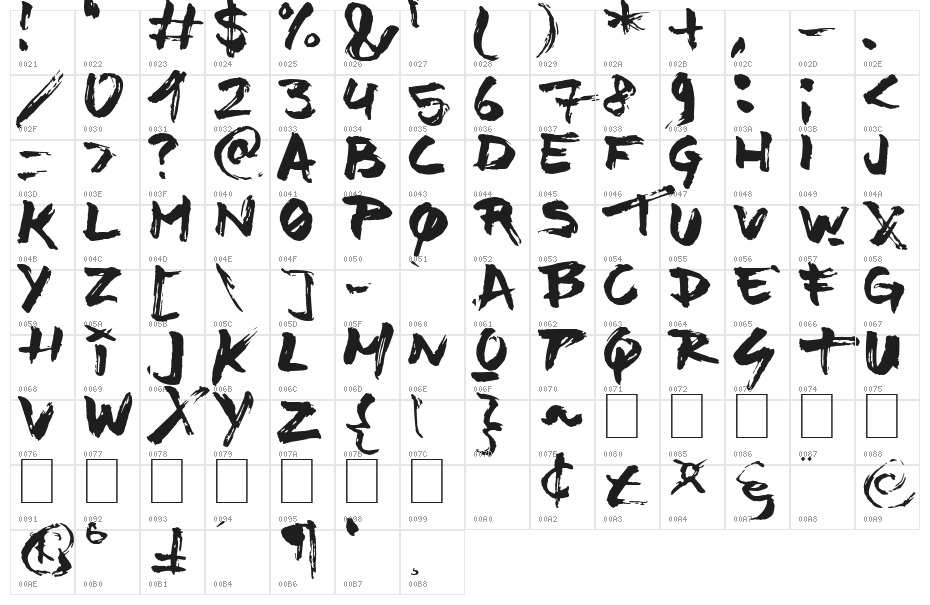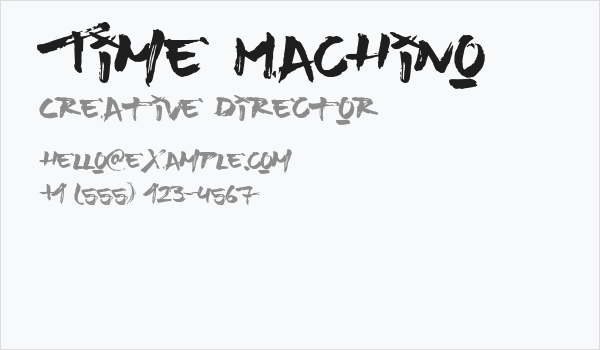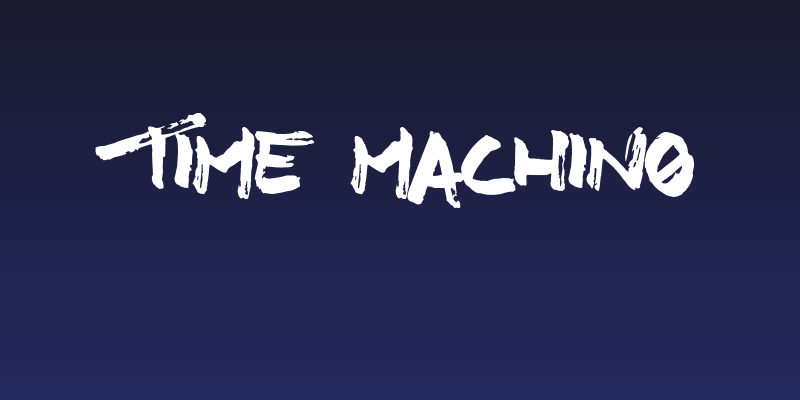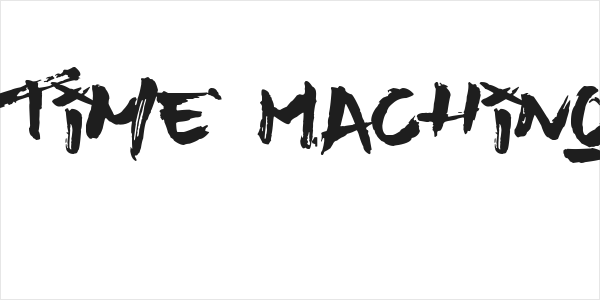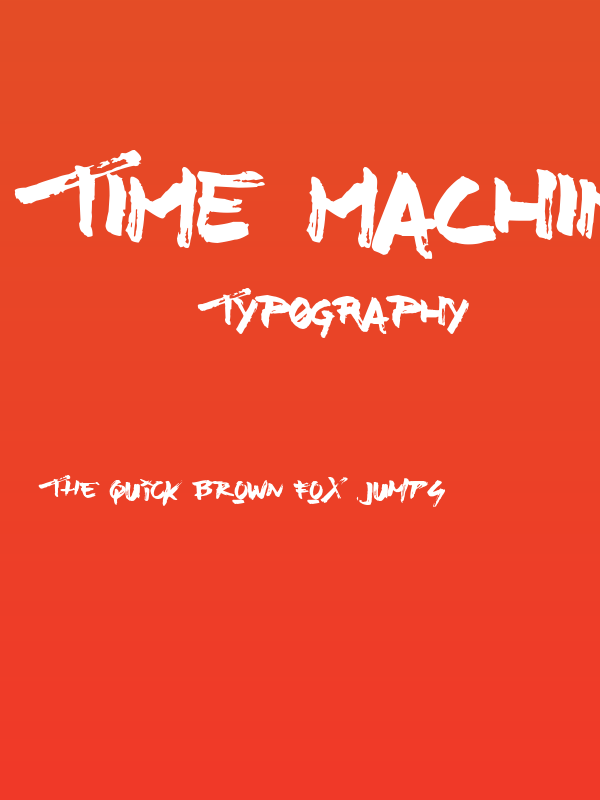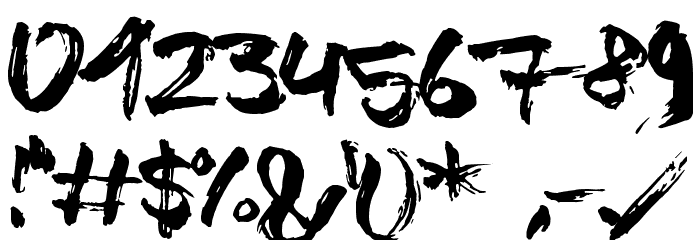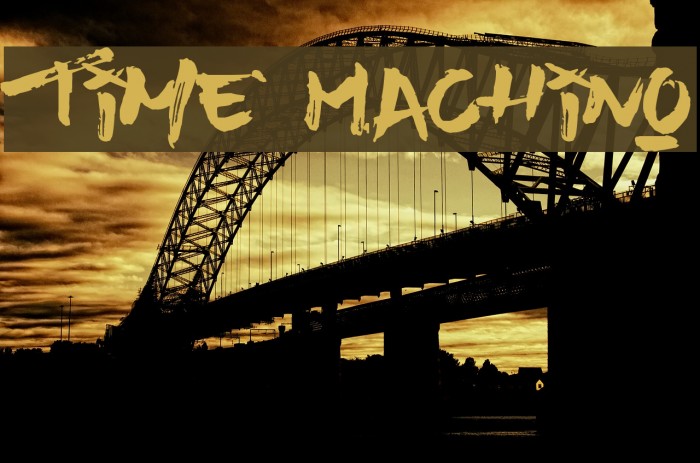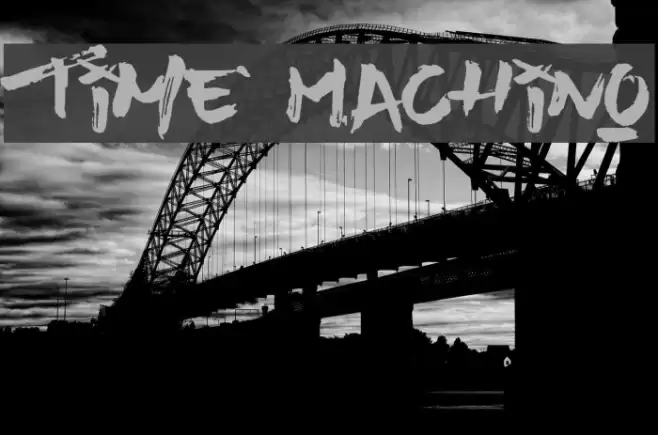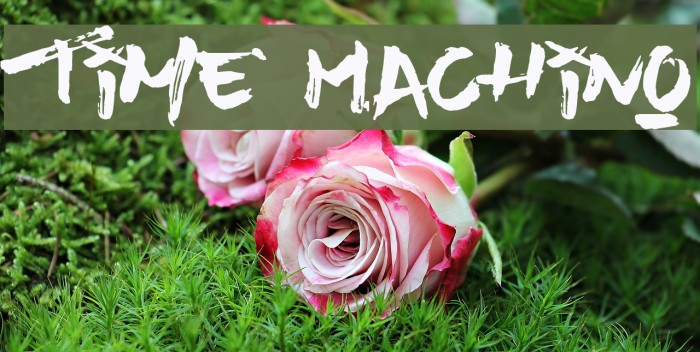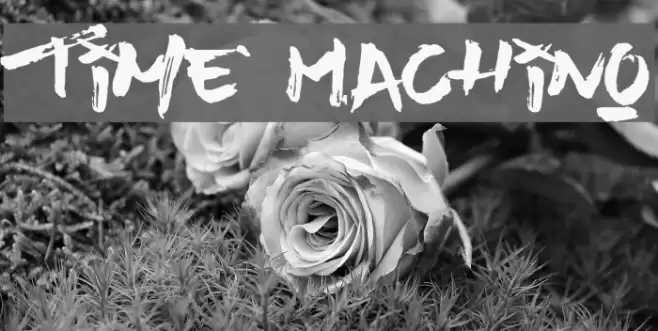
Time Machino Font
Time Machino Description
This font exudes a bold and dynamic presence with its brush-like strokes and energetic style. The characters are crafted with a sense of movement and spontaneity, giving them a hand-painted appearance. The uppercase and lowercase letters maintain a consistent flow, while the numbers and special characters complement the overall aesthetic. The font's rugged texture and irregular edges add to its expressive nature, making it ideal for projects that require a touch of creativity and flair.
| Use Case | Logos, Headlines, Artistic projects |
| Proposed Projects | Ideal for posters, album covers, graffiti art, and branding that requires a bold, artistic touch. |